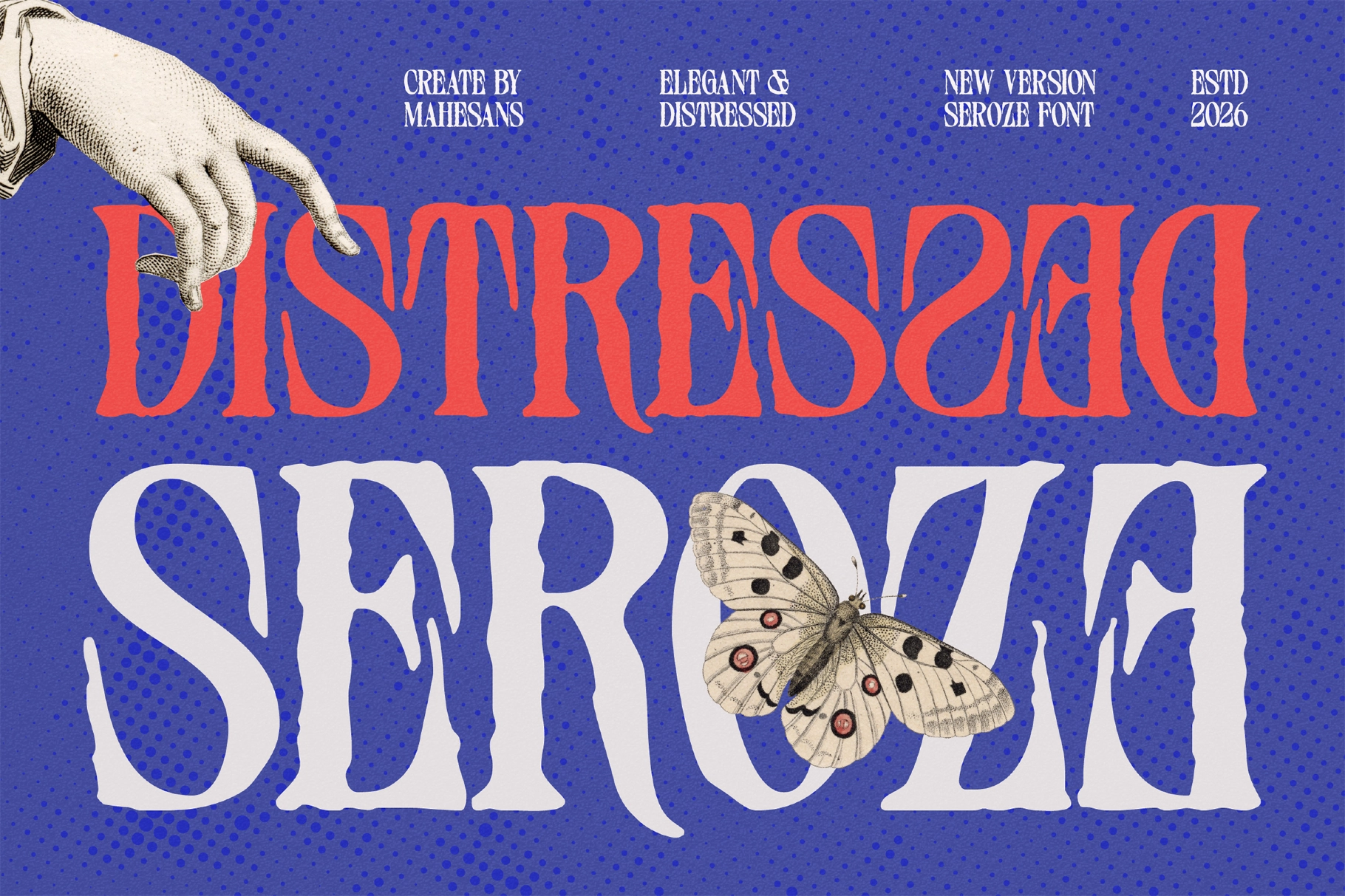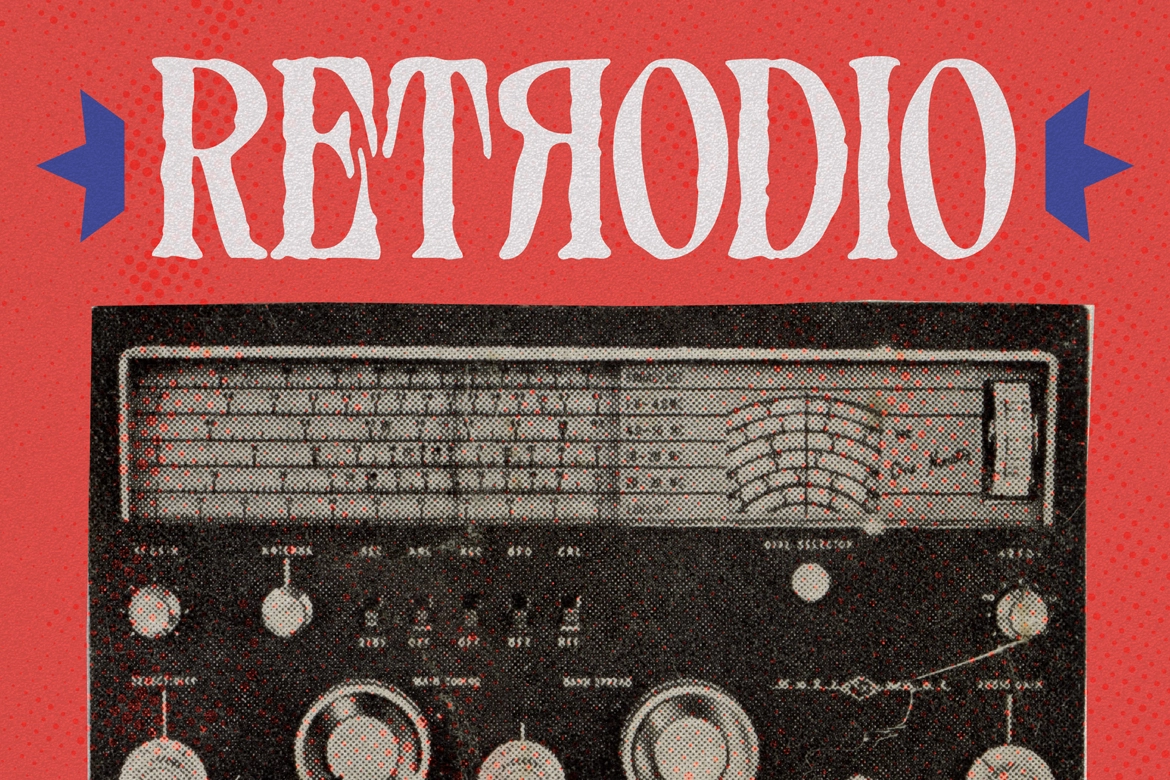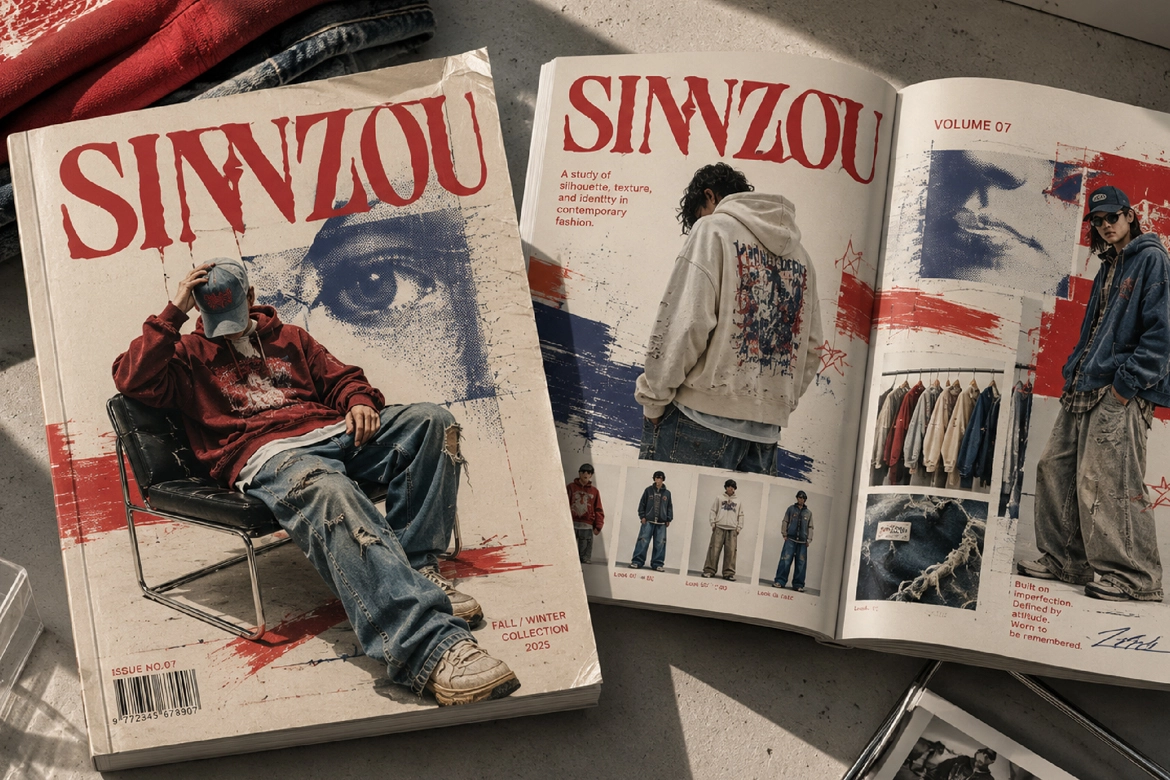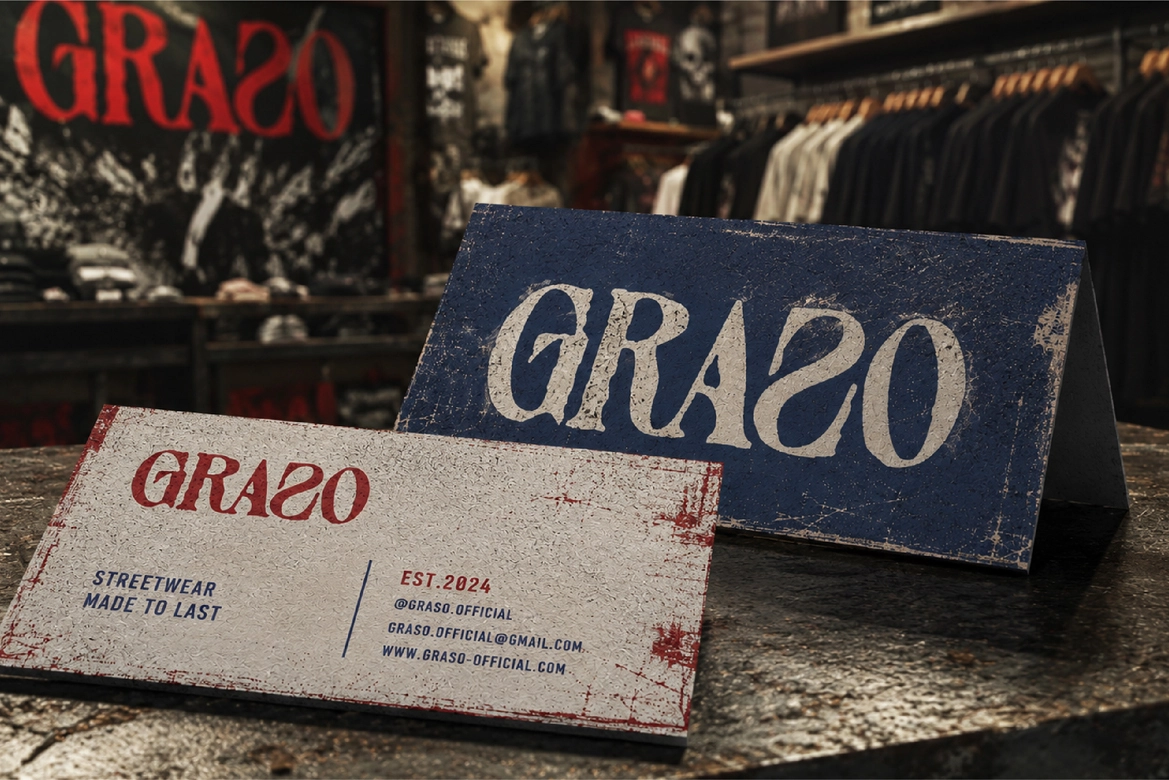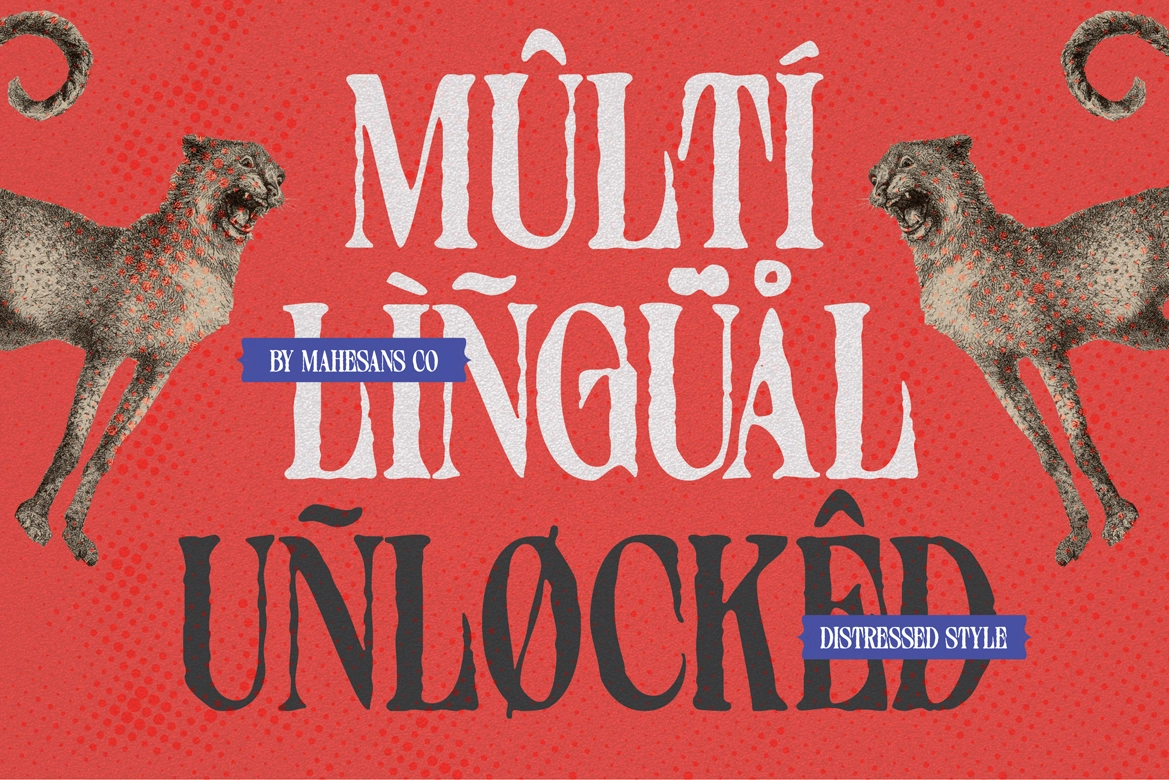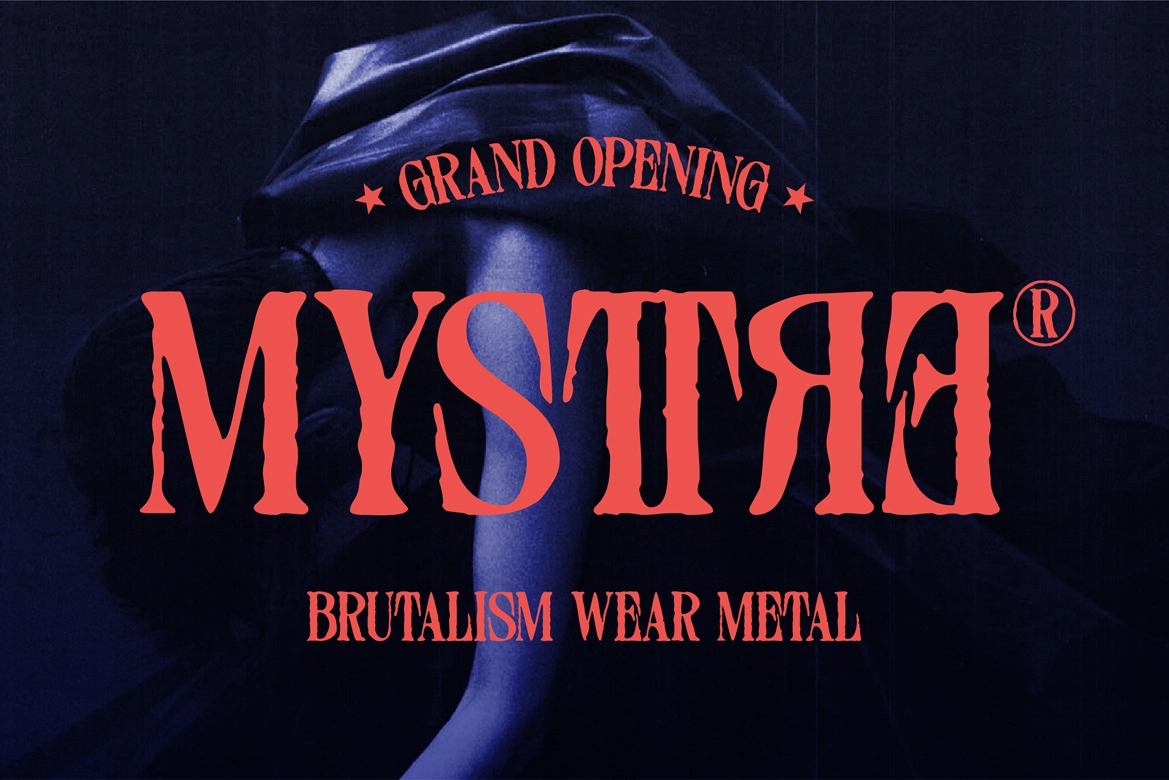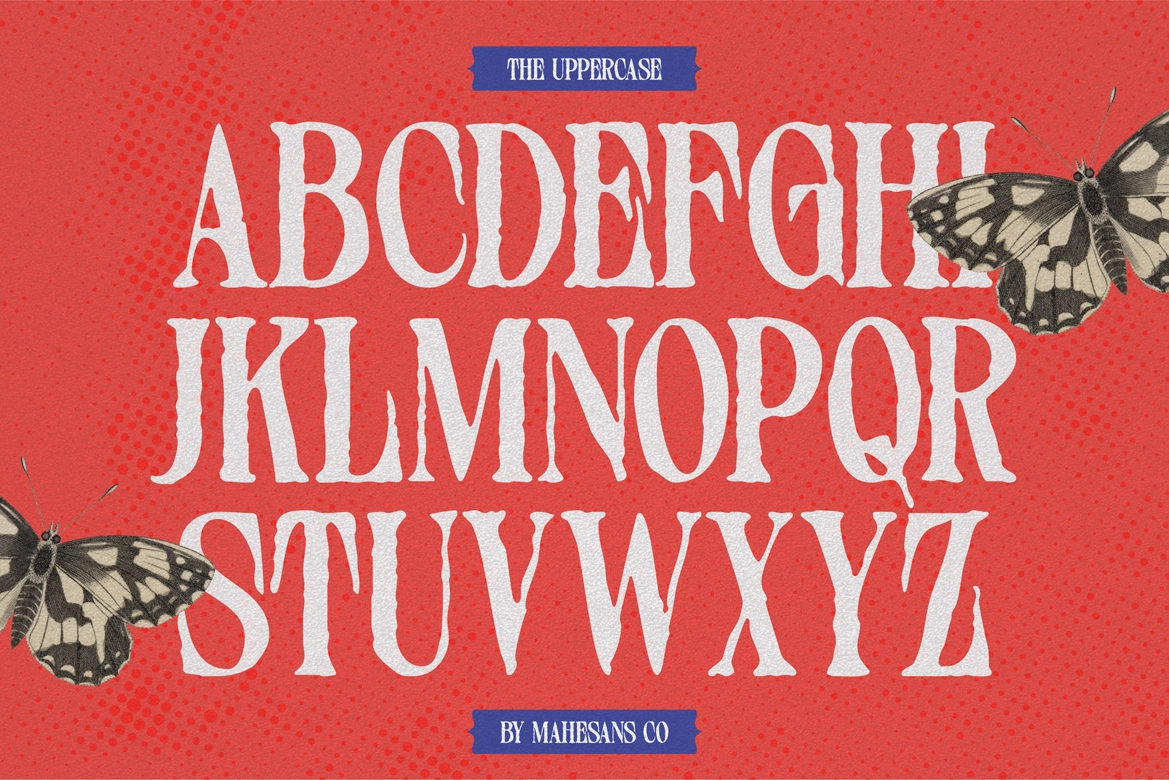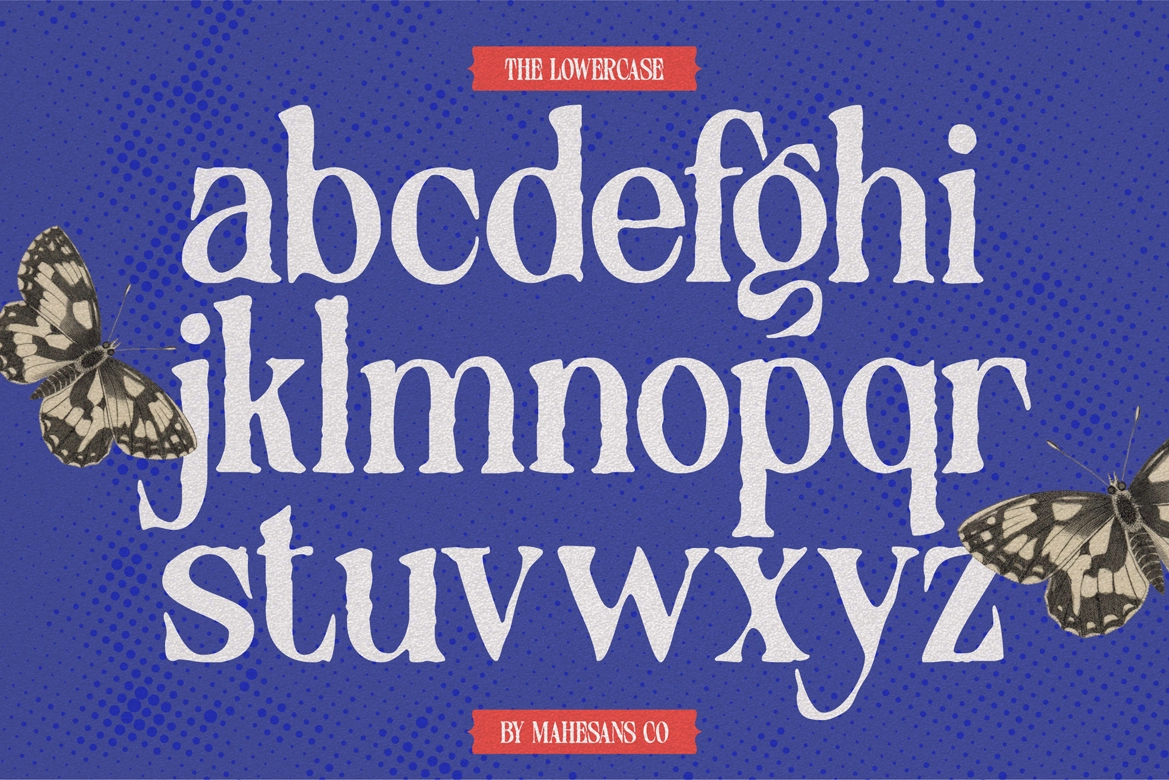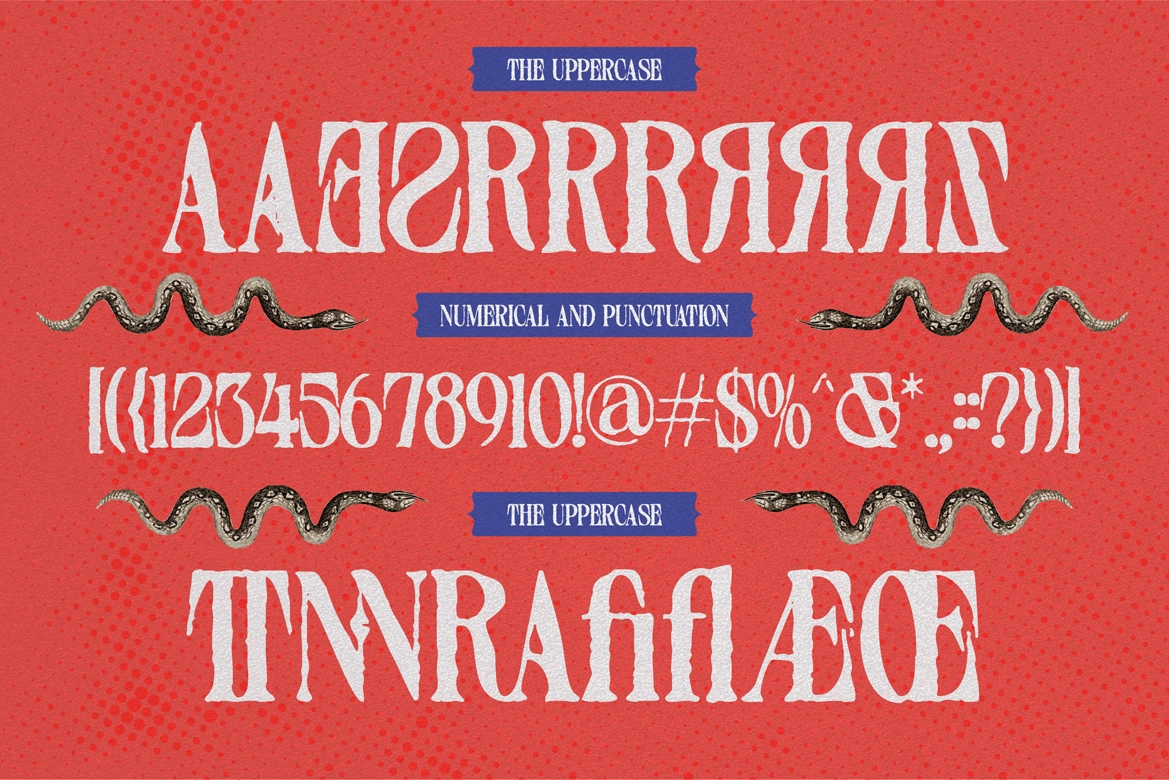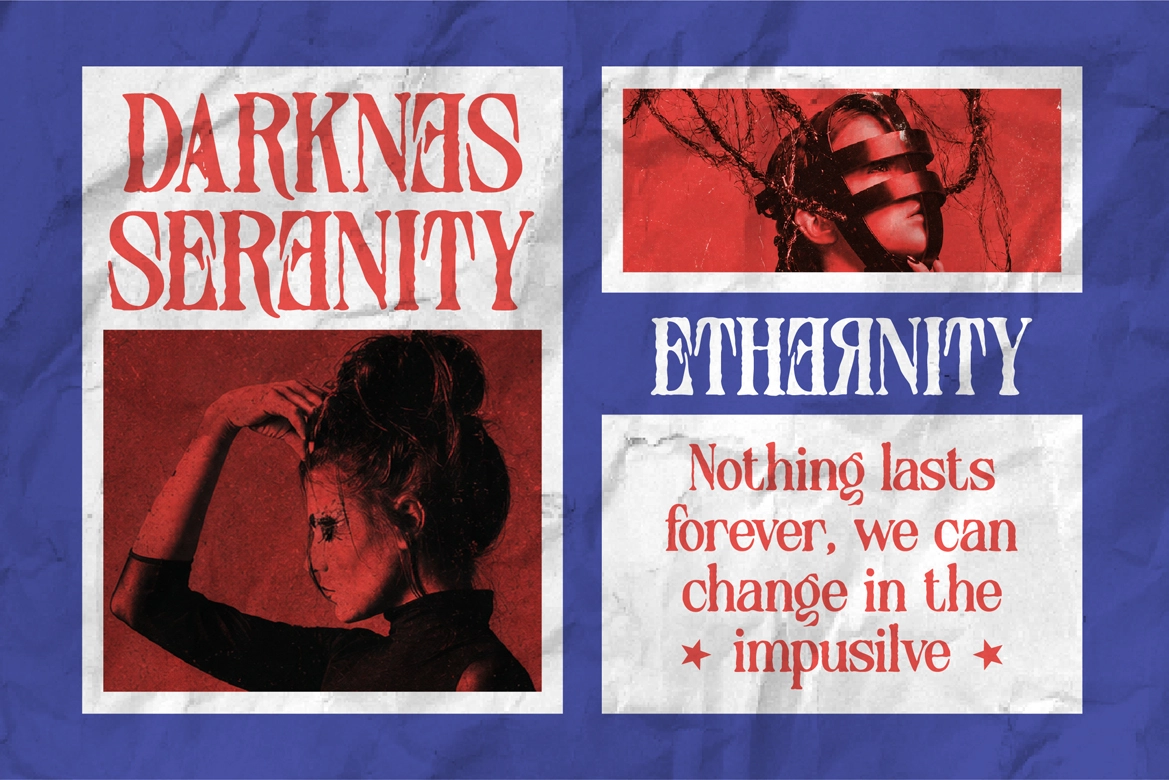
Distressed Seroze – Rough Display Serif Font
Distressed Seroze is a rough display serif font with heavy stroke weight, wide slab-adjacent proportions, and a grain-and-chip texture baked into every letterform — chipped edges, irregular ink spread, and surface erosion that reads like something pulled off a vintage letterpress after a few decades in a drawer. The construction underneath is confident and bold; the distress doesn't undermine the weight, it gives it history.
The alternates push select letters into gothic and blackletter-adjacent territory, which makes the set flexible enough to run as a hard-edged display face or dial toward something more ceremonially grim. Use it for streetwear and apparel graphics, album covers, underground event posters, fashion editorial headlines, horror and occult branding, packaging for spirits or hot sauce, and tattoo-adjacent merchandise.